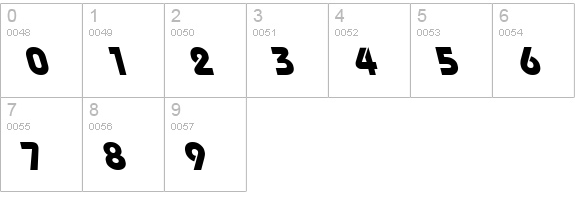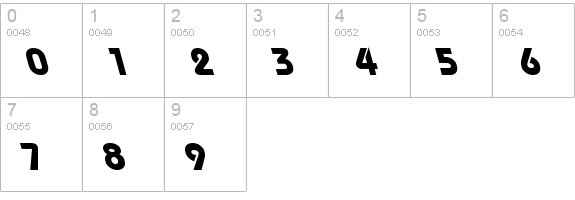
JasminBold Font Details
Introducing JasminBold font - a sleek and stylish typeface designed to make a bold statement in your design projects. With its elegant curves and strong presence, JasminBold is perfect for adding a touch of sophistication to your work. This versatile font is ideal for a wide range of applications, from branding and advertising to packaging and web design. Whether you're creating a logo, poster, or social media graphics, JasminBold will elevate your designs to the next level. Best of all, JasminBold is completely free to download at FontsMarket.com. So why wait? Add this striking font to your collection today and bring your creative visions to life with ease.